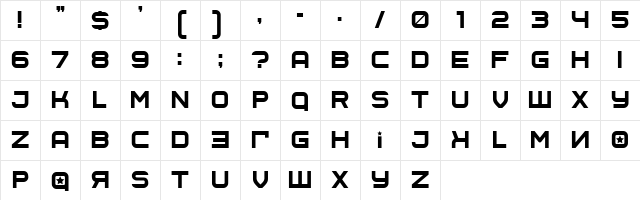
Soviet Program Regular Free Font
Soviet Program Regular
Soviet Program Family
Design Context for Soviet Program
Soviet Program is a composed and adaptable typeface that performs quietly and consistently across a wide range of design contexts.